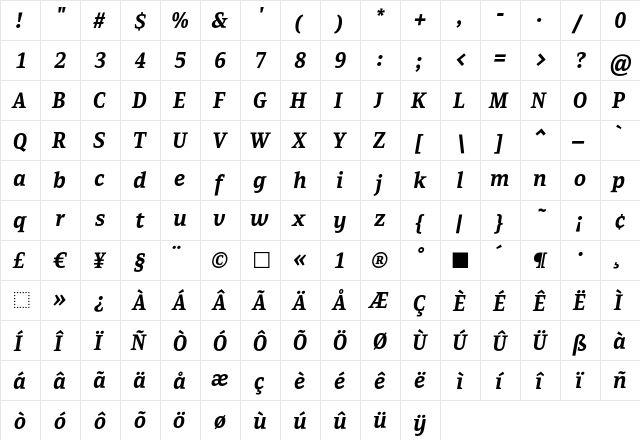
GakSerif BoldItalic Font Preview
Design Context for GakSerif Typeface
GakSerif carries the refined structure of traditional serif typography, with bracketed terminals and considered proportions that communicate credibility and craft. The slanted form adds forward momentum and visual energy. Its bold stroke weight gives it real presence on the page.
Pro Tip: Use GakSerif for editorial body copy and considered headline work. Pair with a neutral sans for UI elements or captions to create a classic hierarchy.